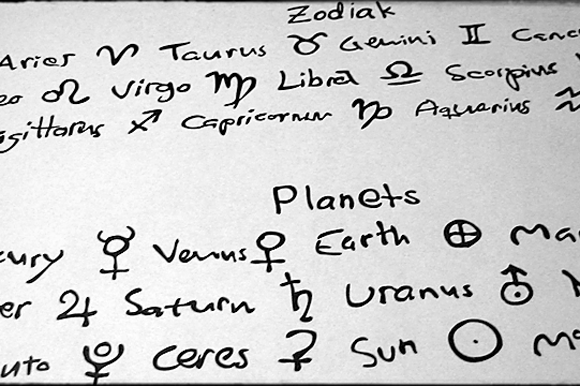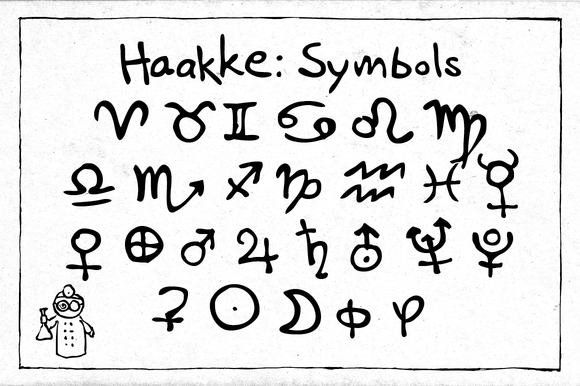
Haakke Symbols Font: Elevate Your Designs with Dawnland’s Unique Creations
In the world of design, fonts play a pivotal role in conveying messages, evoking emotions, and adding aesthetic value to projects. For crafters, designers, and anyone looking to infuse their work with a personal touch, the Haakke Symbols font by Dawnland stands out as a remarkable choice. This article explores the essence of the Haakke Symbols font, its features, and how it can transform your designs.
Introduction to Haakke Symbols Font
The Haakke Symbols font is a distinctive typeface created by Dawnland, a name synonymous with unique and creative digital assets. This font is specifically designed to cater to the needs of designers and crafters who are on the lookout for something fresh and versatile. Haakke Symbols is not just a font; it’s a collection of symbols that can add a new dimension to your work.
Key Features of Haakke Symbols Font
• Unique Symbol Collection: Haakke Symbols offers a wide range of symbols that are not commonly found in standard font collections. These symbols are meticulously designed to be both visually appealing and highly versatile.
• High-Quality Design: Each symbol in the Haakke Symbols font is crafted with attention to detail, ensuring that they are clear, crisp, and ready for use in high-resolution designs.
Who Can Benefit from Haakke Symbols Font?
The Haakke Symbols font is a valuable resource for a diverse group of professionals and hobbyists. Graphic designers can use it to add unique elements to their work, from branding materials to digital content. Crafters, especially those involved in digital crafting or creating printable art, will find the font’s symbols to be a perfect fit for their projects. Additionally, artists and DIY enthusiasts looking to personalize their creations can also leverage the Haakke Symbols font.
Applications of Haakke Symbols Font
The applications of the Haakke Symbols font are vast and varied. Here are a few examples:
• Digital Art and Illustrations: Add a personal touch to your digital art with unique symbols and shapes.
• Crafting Projects: Whether you’re creating printable art, planners, or journals, Haakke Symbols can enhance your designs.
• Branding and Marketing Materials: Use distinctive symbols to make your brand stand out.
• Web Design: Enhance your website’s visual appeal with custom icons and symbols.
How to Get the Most Out of Haakke Symbols Font
To fully leverage the potential of the Haakke Symbols font, consider the following tips:
• Experiment with Sizes and Colors: Don’t be afraid to play around with different sizes and color schemes to see what works best for your project.
• Combine with Other Fonts: Mixing Haakke Symbols with complementary fonts can create visually appealing contrasts.
• Use in Context: Ensure that the symbols you choose align with the message and aesthetic of your project.
The Haakke Symbols font by Dawnland is a game-changer for designers and crafters looking to elevate their projects. With its unique collection of symbols, ease of use, and high-quality design, it’s an asset that can enhance a wide range of creative endeavors. Whether you’re working on digital art, crafting, or marketing materials, Haakke Symbols offers the versatility and style to make your work stand out.